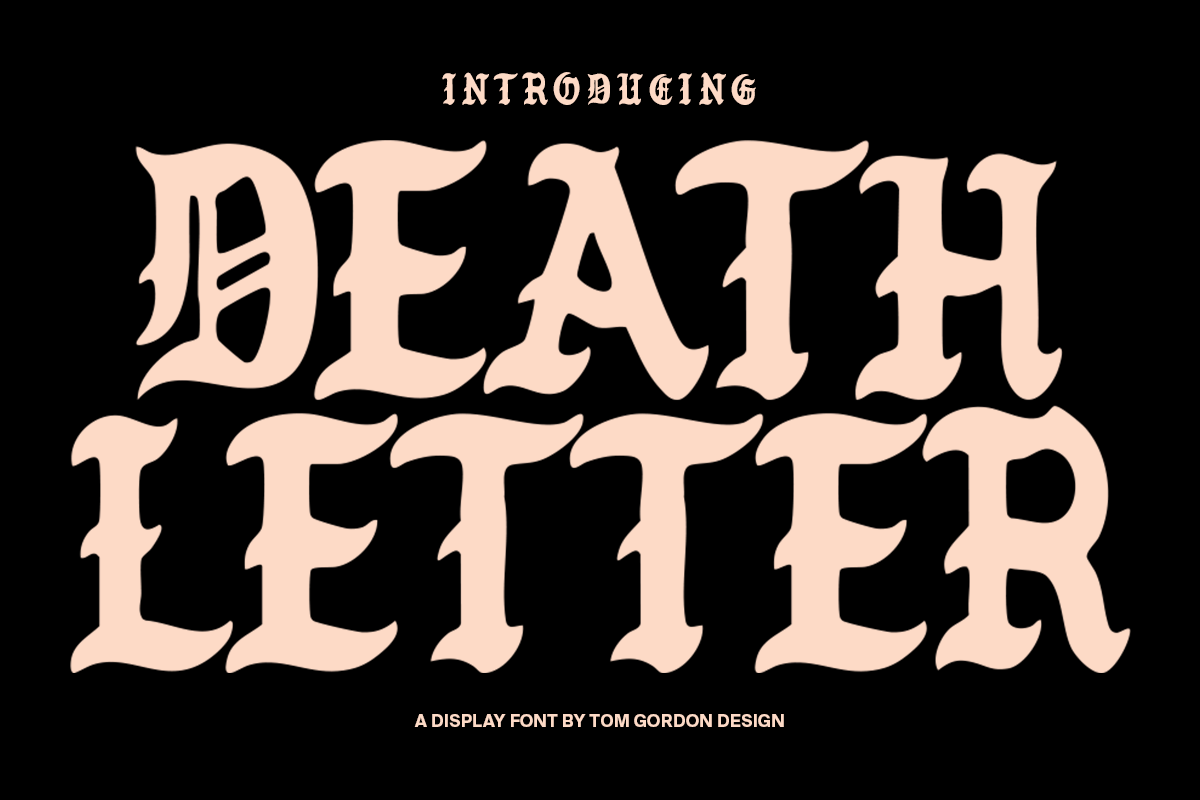
Death Letter Font
Inspired by traditional blackletter/gothic fonts this bold font was specifically crafted for use in merchandise but is also great for many other applications. As a T-shirt designer of 15+ years for the biggest music artists in the world I wanted to create something that ticked a few more boxes for my own work load. Death Letter was the font I've wanted and not had for the past few years and now I am offering it out to the world.